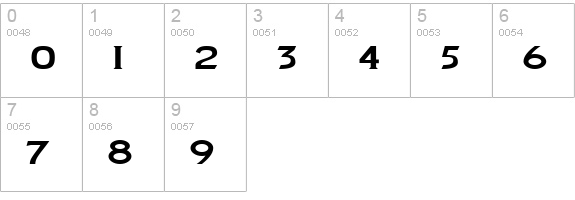
LewishamWide Font Details
LewishamWide is a modern and versatile font that exudes sophistication and elegance. Its clean lines and balanced proportions make it perfect for a wide range of design projects, from branding to editorial layouts. The generous width of the characters gives this font a bold and impactful presence, while still maintaining a sense of refinement. Designed with readability in mind, LewishamWide is suitable for both display and text use, making it a versatile choice for any designer. Whether you're creating a logo, website, poster, or any other design project, this font will elevate your work to the next level. Best of all, LewishamWide is available for free download at FontsMarket.com, allowing you to access this high-quality font without breaking the bank. Don't miss out on this fantastic opportunity to enhance your designs with LewishamWide!